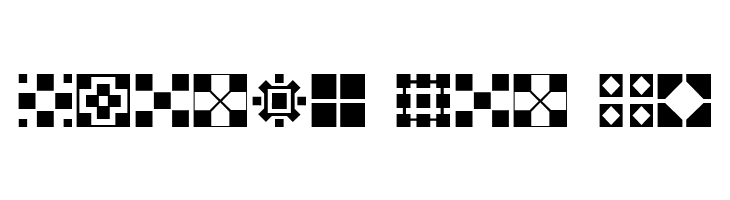
AlphaShapes xmas balls Font
A festive font with characters inside Christmas ornament shapes.
AlphaShapes hearts Font
A decorative font with characters inside heart shapes, perfect for romantic themes.
AlphaShapes xmas trees Font
A decorative font with characters inside Christmas tree shapes, perfect for festive designs.
AlphaShapes meltdowns Font
A bold, dripping font ideal for horror or Halloween themes.
AlphaShapes gravestones 3 Font
A bold, spooky font with characters set in gravestone shapes.
Heart Things 2 Font
A decorative font with heart shapes in patterned squares, perfect for playful designs.
Star Things 2 Font
A bold decorative font of assorted star and gear motifs.
AlphaShapes meltdowns reverse Font
A bold, dripping font with a melting effect, perfect for dramatic and creative designs.
Hearts n Arrows Font
A playful decorative font combining hearts and arrows for a whimsical design.
Heart Things 3 Font
Patterned heart dingbat font with diverse decorative fills.
AlphaShapes gravestones Font
A decorative font with characters styled as gravestones, ideal for spooky themes.
AlphaShapes hearts 2a Font
A decorative font with characters inside heart shapes, perfect for romantic or playful designs.
AlphaShapes gravestones 2 Font
A bold, gravestone-themed font with uppercase letters and numbers.
Circle Things 2 Font
Ornamental dingbat font with circular and geometric motifs.
Heart Things Font
A playful decorative font with heart-based geometric symbols.
AlphaShapes pumpkins Font
A playful, pumpkin-themed decorative font perfect for Halloween projects.
Cut Outs for 3D FX Font
A bold decorative symbol font with geometric and icon-based glyphs.
Star Things 3 Font
A decorative symbol font with assorted starburst and spiked shapes.